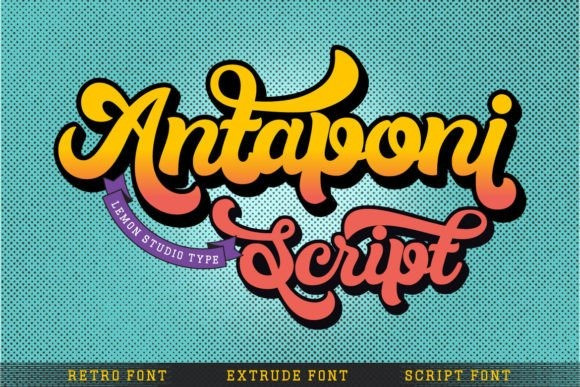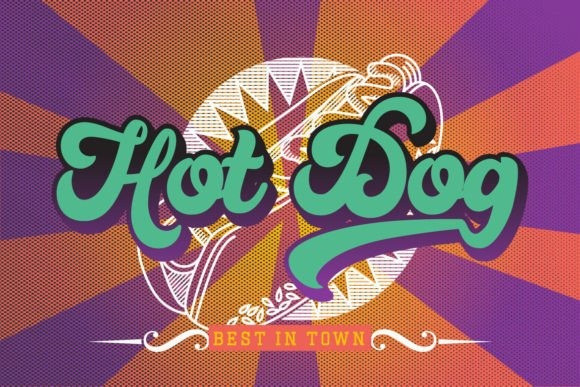
Antaponi Script Font
Antaponi Script is a cool, bold, retro-style script display font. No matter the topic, this font will be an incredible asset to your fonts’ library, as it has the potential to elevate any creation.